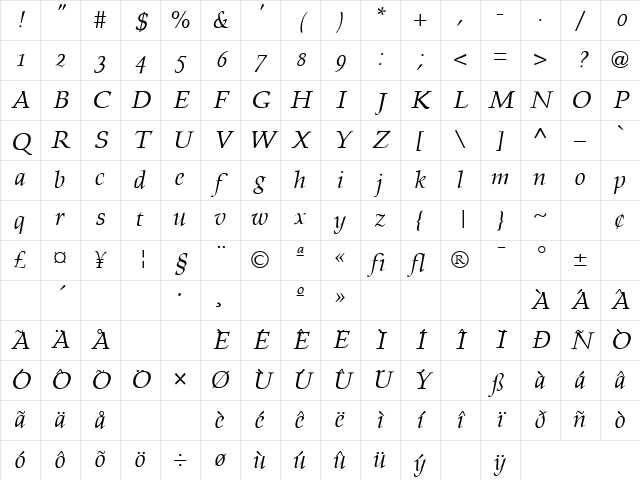
Prospero Italic
Prospero Family
Design Context for Prospero
Prospero is a composed and adaptable typeface that performs quietly and consistently across a wide range of design contexts. The slanted form adds forward momentum and visual energy.